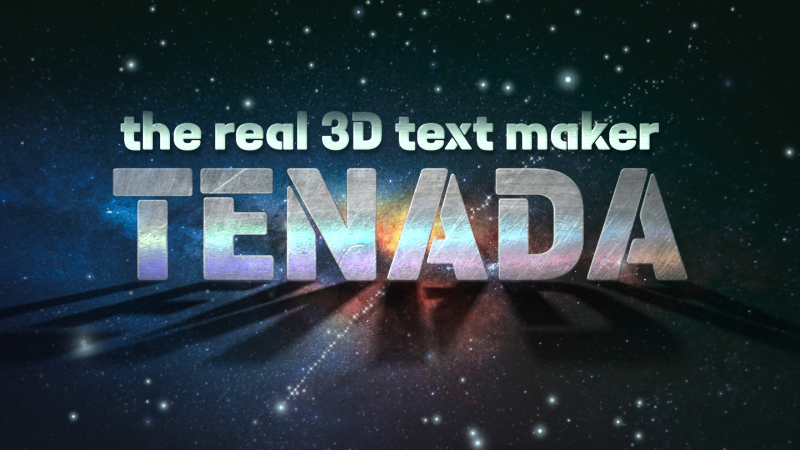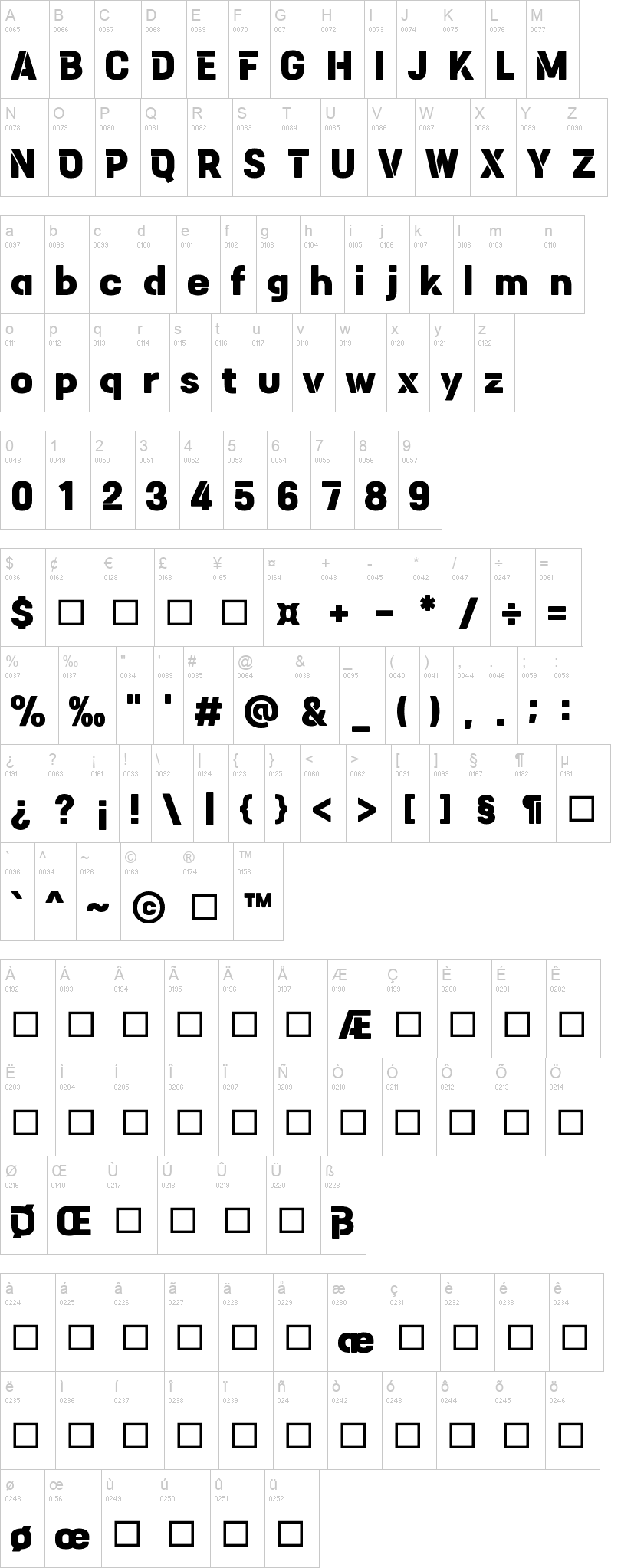
Note of the authorTENADA font is a modern style font with a stencil design.
The font includes English, Korean, Latin-1 Supplement, Latin Extended-A, Cyrillic, Greek, and Coptic.
Stencil fonts are fancy when rendering in 3D because they have a small space in the middle of the characters. 3D shadows are an example.